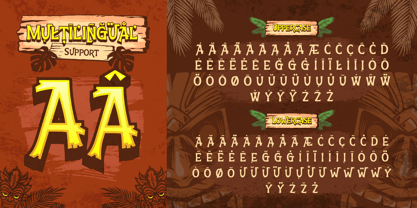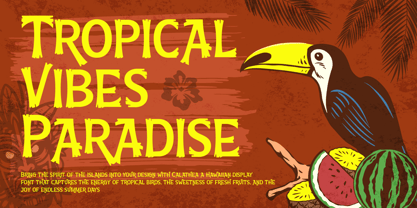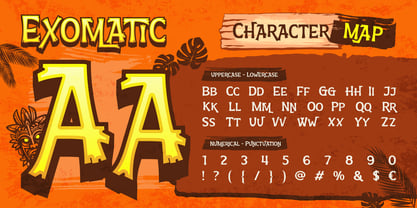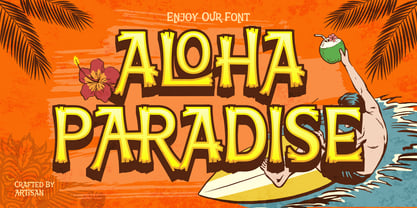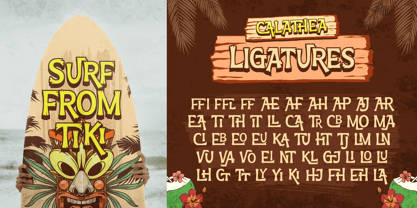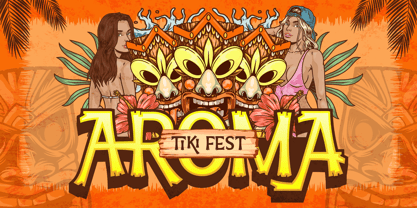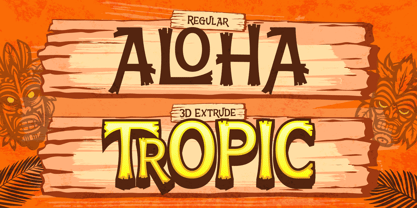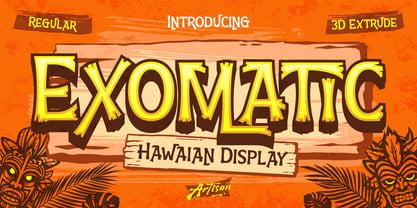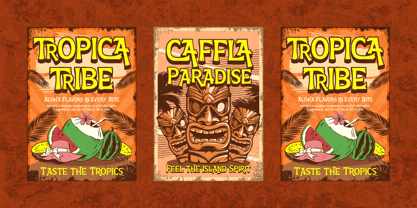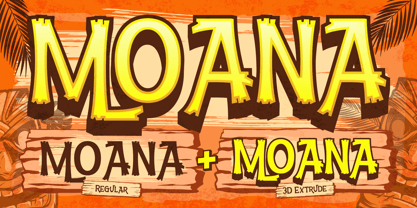
Exomatic
The Exomatic Font Family was designed by Meidy Meichico and published by Artisan Themes. Exomatic contains 2 styles and family package options. More about this family
Say aloha to Exomatic, a fun and bold Hawaiian display font that brings sunshine and island vibes straight to your design! Whether you’re making summer posters, tropical logos or surfboard art, Exomatic instantly gives that happy and relaxed island feel. It comes in Regular and 3D Extrude styles, so you can play with depth and creativity. Inspired by tiki culture and beach life, Exomatic is here to remind you to chill, smile, and enjoy the ride. 🌺 Perfect for: - Posters & signage - Beach and bar branding - Summer invitations - Travel merch and packaging Bring a splash of tropical joy to your designs and let every word feel like a vacation!